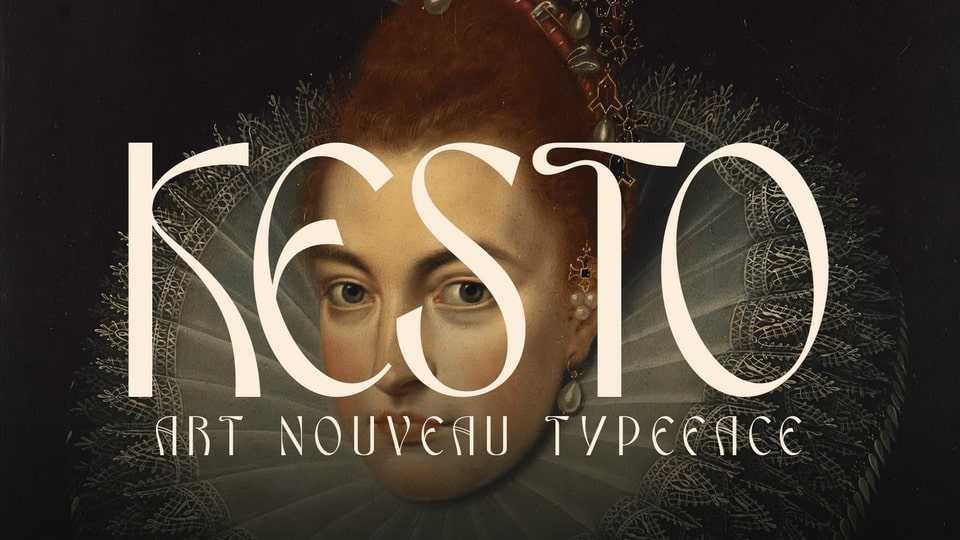
Download Kesto font, an elegant Art Nouveau style typeface. Kesto is designed with creative letters, which makes it perfect for creating nostalgic and retro designs such as: posters, magazines, logos and much more.
Designer: Valentino Vergan